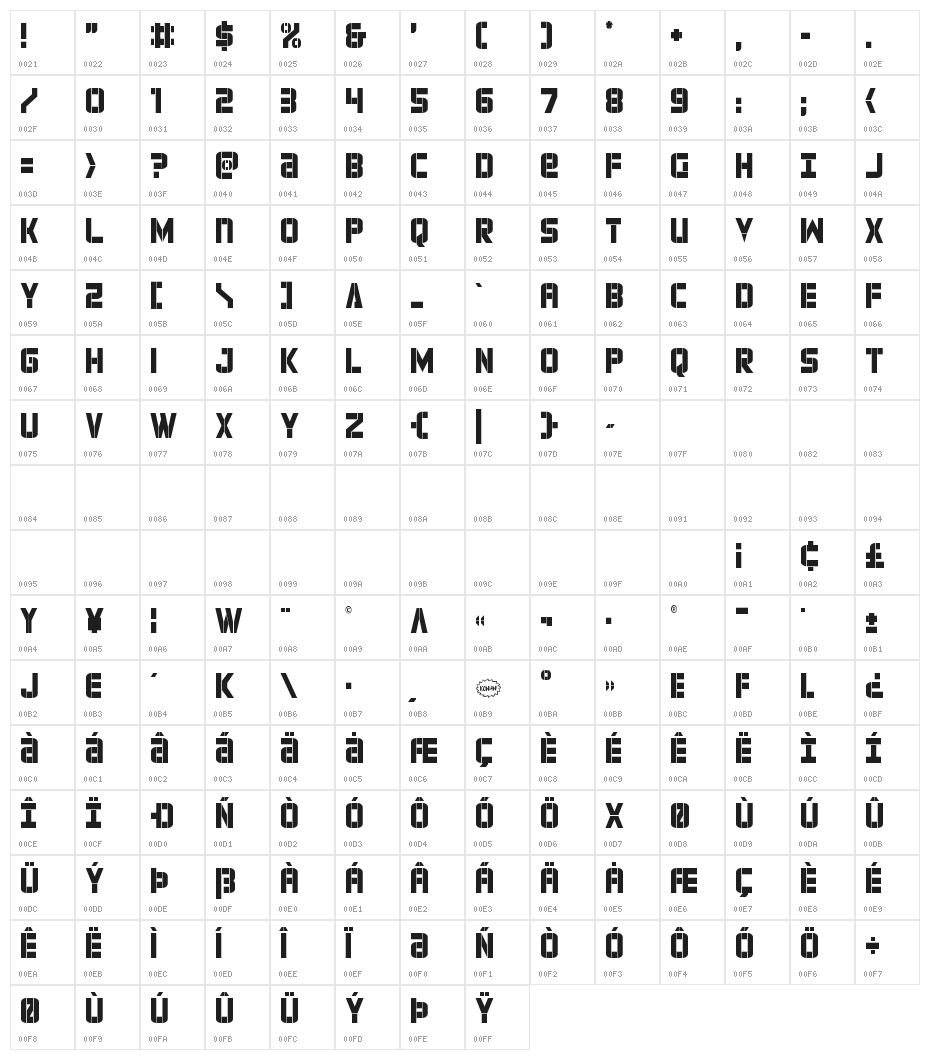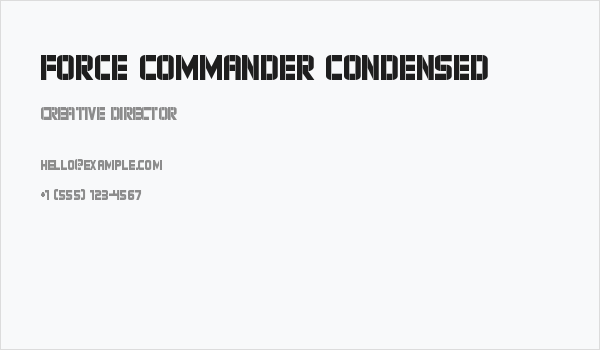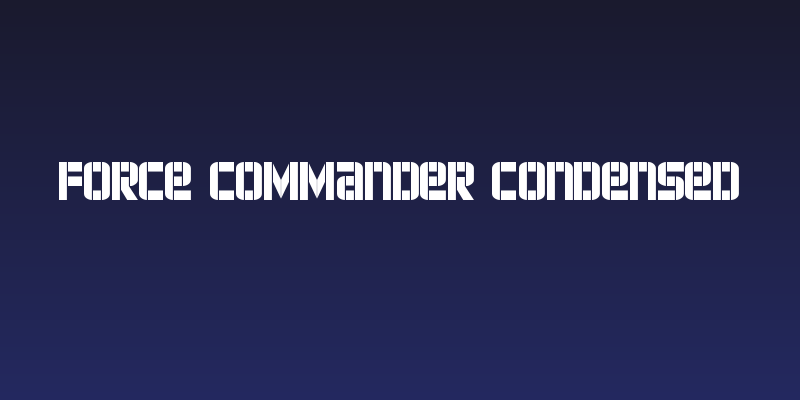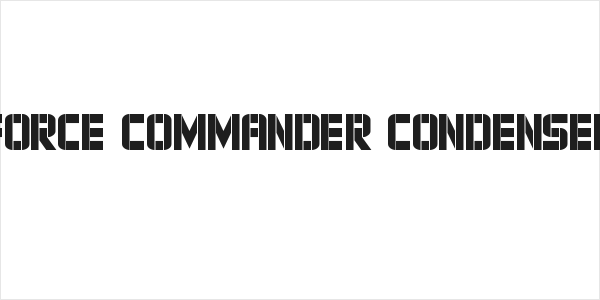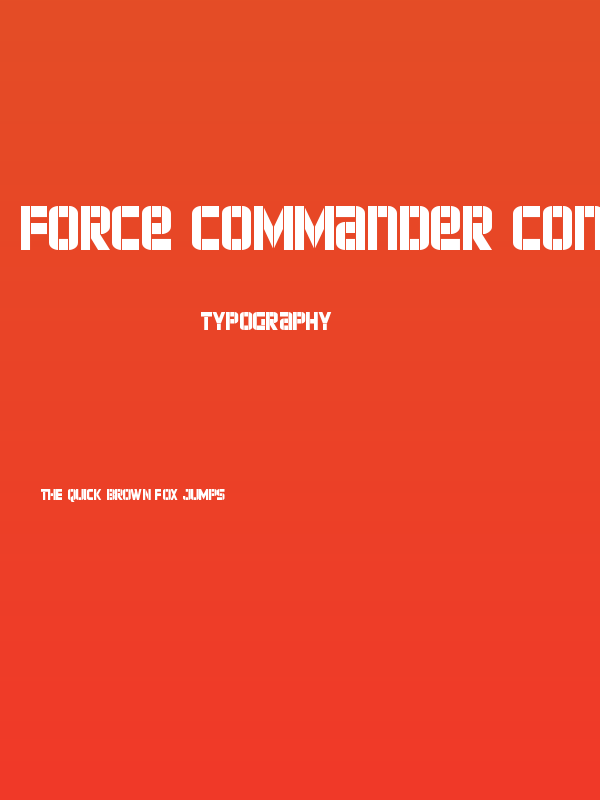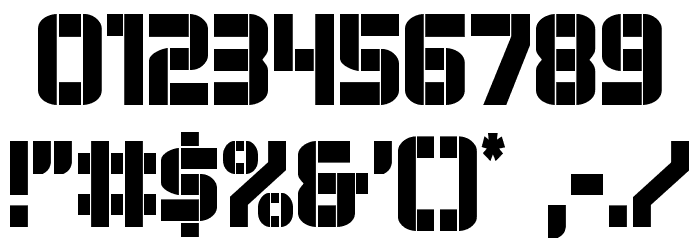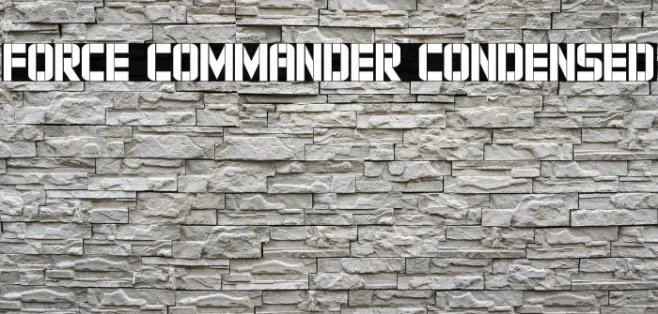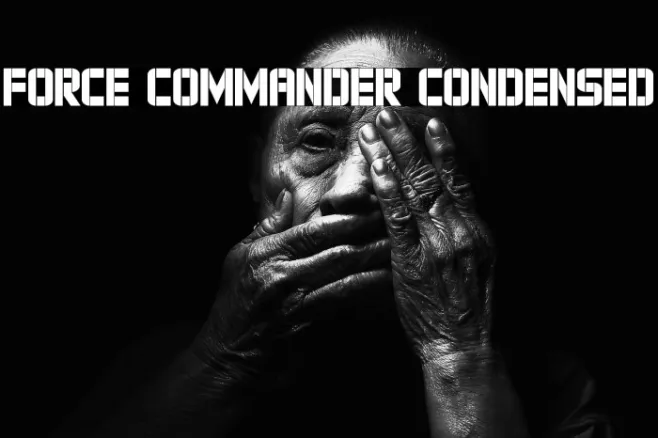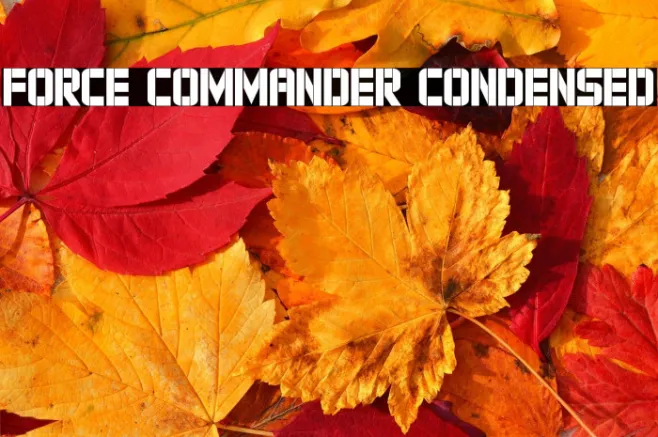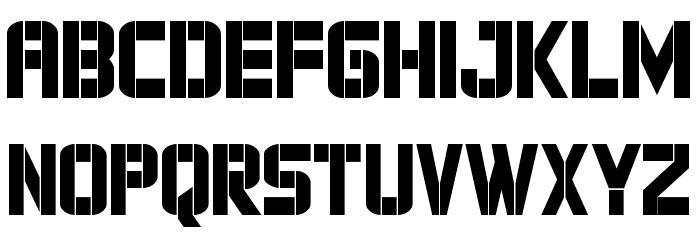
Force Commander Condensed Font
Force Commander Condensed Description
This font features a bold, geometric design with a distinct stencil-like appearance. Each character is composed of solid, blocky shapes with strategic gaps, giving it a futuristic and industrial feel. The uppercase and lowercase letters maintain a consistent style, emphasizing uniformity and strength. Numbers and special characters follow the same design principles, ensuring a cohesive look across all glyphs. The condensed width of the characters allows for efficient use of space, making it suitable for impactful headlines and titles. The high contrast between the thick strokes and the negative space enhances readability and adds a dynamic visual interest.
| Proposed Projects | Ideal for branding, posters, signage, and any project requiring a strong, modern aesthetic. |